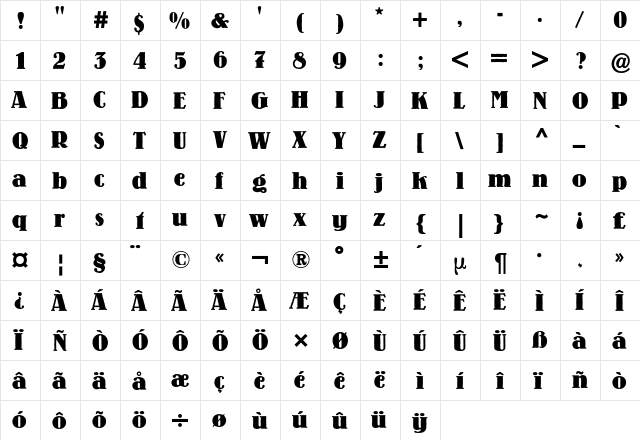
Lo-Type BQ Regular
Design Context for Lo-Type BQ Typeface
Lo-Type BQ offers clean, dependable letterforms without strong stylistic allegiance, making it a practical choice for designers who need flexibility.